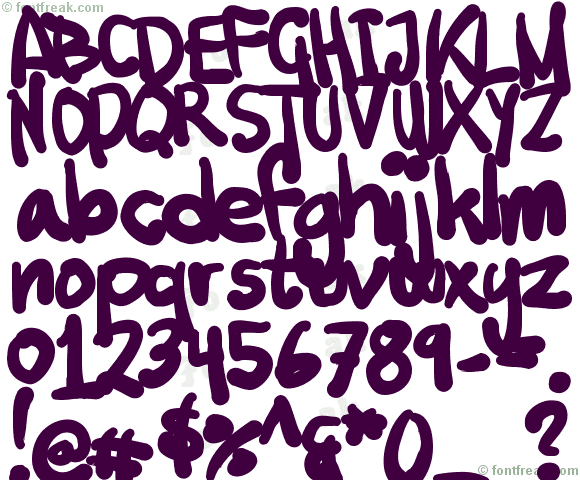
Tusch Touch 3
Tusch Touch 3 by Mans Greback is a distinctive display font that embodies a playful yet artistic flair, making it an excellent choice for various creative projects. This font is characterized by its bold, brush-like strokes that convey a sense of energy and spontaneity. The stroke weight is consistent, with smooth curves that add a dynamic feel, while the spacing between letters enhances readability. The overall appearance of Tusch Touch 3 is both informal and expressive, making it perfect for designs that require a touch of personality.
This font is particularly well-suited for use cases such as wedding invitations, where its whimsical nature can add charm to the event. Additionally, it can enhance movie posters, bringing a vibrant touch that attracts attention. Restaurant menus can also benefit from this font, providing a friendly vibe that complements casual dining experiences. Moreover, Tusch Touch 3 is ideal for branding projects aimed at small businesses, helping them create a memorable identity that resonates with their target audience. Graphic designers and content creators will find this font to be a valuable asset in their toolkit.
What sets Tusch Touch 3 apart is its unique ability to blend artistry with functionality. The font's free availability as freeware allows users to explore its creative potential without financial barriers. Whether you are designing for print or digital media, the Tusch Touch 3 font free download offers an opportunity to infuse your projects with originality and flair. Its versatility and eye-catching style make it a standout choice for anyone looking to make a lasting impression in their designs.